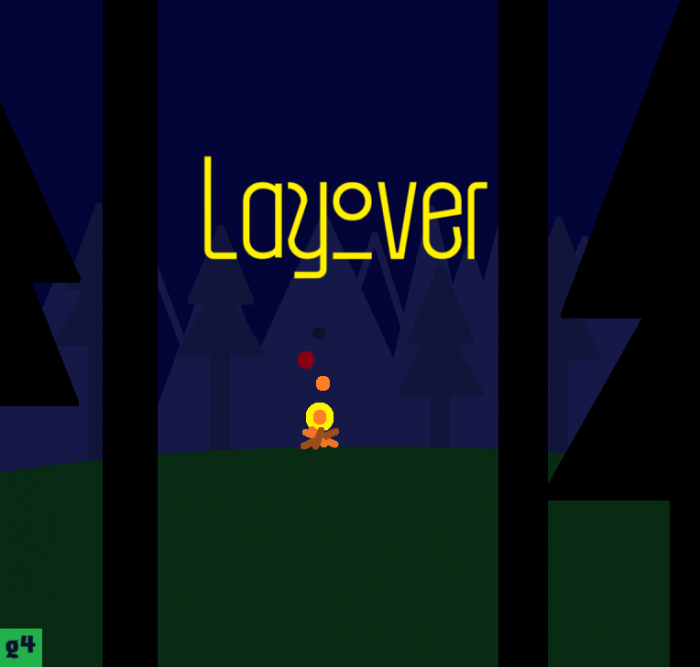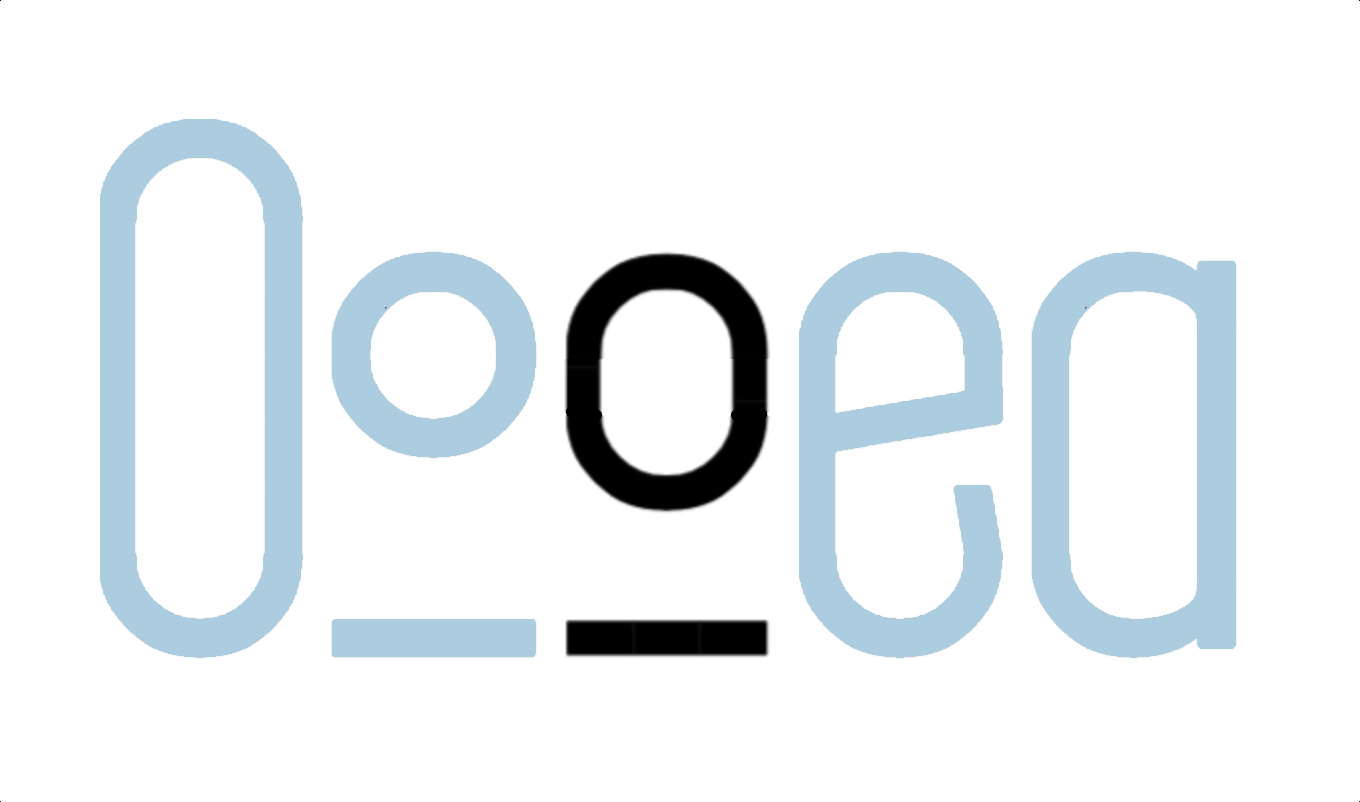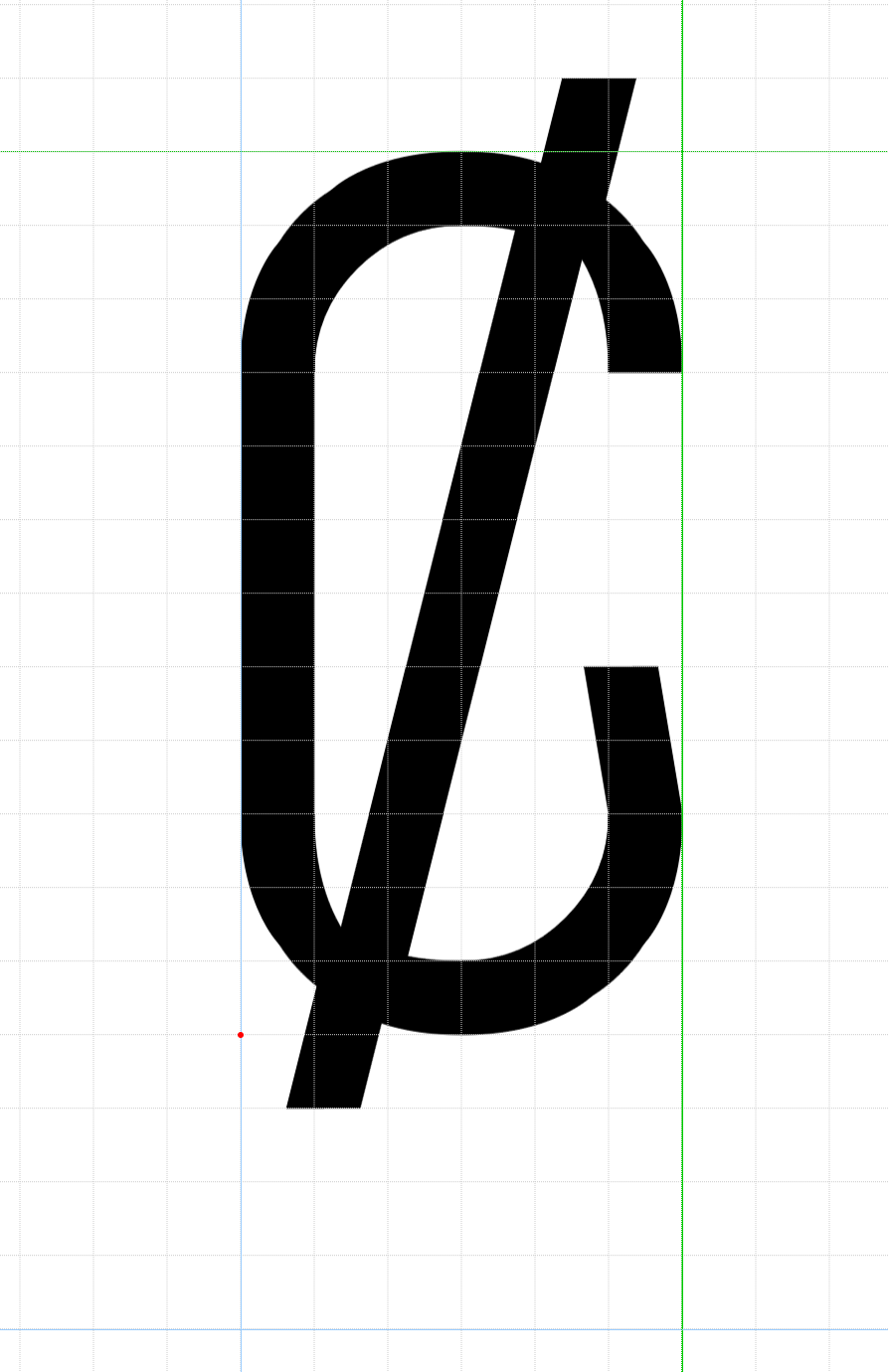
UPDATE: working on expanding to more latin, but the glyphs in the category are NOT FINAL YET. I will hopefully be done in a day or two.
The font combines good in the sample 10/10!
Most accent marks in the more Latin set are final (some that aren't done include ø, đ, ß, and thorn). Hopefully will be expanding again soon.
Nice font! I like the curved ends. And what do you think about this little change on the "o"?
@elmo maybe it could be [º]